Typography is one of the most powerful elements of graphic and web design. A well-chosen font can make a design look modern, professional, and memorable, while a poor font choice can make even the best layout appear confusing or outdated. However, choosing a beautiful font is only half of the equation. The real magic happens when different fonts work together in harmony, a concept known as font pairing.
Whether you’re designing a logo, website, social media post, presentation, business card, or marketing banner, understanding font pairing will help you create designs that are visually appealing and easy to read.
In this guide, you’ll learn what font pairing is, why it matters, the basic principles behind it, and how to combine fonts like a professional designer.
What is Font Pairing?
Font pairing is the practice of combining two or more fonts in a single design to create visual balance, hierarchy, and personality. Instead of using one font for everything, designers typically use different fonts for headings, subheadings, and body text.
A successful font pair makes content easier to read while giving the design a polished and professional appearance.
Think of typography like fashion. Wearing matching colors and complementary accessories creates a stylish outfit. In the same way, pairing fonts that complement each other creates an attractive design.
Why Font Pairing Matters
Many beginners underestimate the importance of typography. They focus on colors, images, and layouts while ignoring the fonts. In reality, typography often determines whether users enjoy reading your content.
Good font pairing helps:
- Improve readability
- Create a professional appearance
- Build brand identity
- Guide readers through information
- Increase engagement
- Make designs more memorable
- Establish visual hierarchy
Imagine opening two websites. One uses random fonts with inconsistent spacing, while the other uses clean typography with clear headings and readable paragraphs. Most people naturally trust and enjoy the second website more.
Typography directly affects user experience.
Understanding Font Categories
Before learning how to pair fonts, it’s important to understand the major font categories.
Serif Fonts
Serif fonts have small decorative strokes at the ends of letters. They often feel traditional, elegant, trustworthy, and professional.
Popular examples include:
- Merriweather
- Playfair Display
- Libre Baskerville
- Lora
- Crimson Text
Best for:
- Books
- Editorial layouts
- Luxury brands
- Magazines
- Professional websites
Sans Serif Fonts
Sans serif fonts do not have decorative strokes. They are clean, modern, and highly readable.
Popular examples include:
- Poppins
- Inter
- Open Sans
- Roboto
- Montserrat
- Manrope
- Nunito
Best for:
- Websites
- Mobile apps
- UI design
- Startups
- Technology brands
Script Fonts
Script fonts imitate handwriting or calligraphy.
Popular examples include:
- Pacifico
- Great Vibes
- Allura
- Dancing Script
Best for:
- Wedding invitations
- Logos
- Luxury branding
- Social media graphics
Use script fonts carefully because too much script text becomes difficult to read.
Display Fonts
Display fonts are decorative and designed for attention-grabbing headlines.
Examples include:
- Bebas Neue
- Anton
- Bangers
- Abril Fatface
- Oswald
These fonts work best for large titles rather than paragraphs.
The Golden Rule of Font Pairing
One of the biggest mistakes beginners make is combining too many fonts.
Professional designers usually use:
- One heading font
- One body font
Sometimes they add a third accent font, but rarely more than that.
Using only two fonts creates consistency and keeps the design clean.
Contrast Creates Balance
Great font pairing isn’t about choosing similar fonts.
It’s about choosing fonts that contrast without clashing.
For example:
Bold Heading
Light Paragraph
Large Title
Simple Body Text
Elegant Serif
Minimal Sans Serif
This contrast naturally guides the reader’s eyes.
Pair Fonts with Different Roles
Every font should have a job.
For example:
Heading:
Bold and eye-catching
Subheading:
Medium weight
Paragraph:
Simple and readable
Captions:
Small but clear
When each font serves a different purpose, the design becomes organized.
Keep Readability First
A beautiful font isn’t useful if nobody can read it.
When selecting fonts, ask yourself:
- Can people read it on mobile?
- Is it clear at small sizes?
- Does it work on dark backgrounds?
- Does it remain readable when printed?
Readability should always come before style.
Match the Mood
Every font communicates emotion.
For example:
Elegant fonts suggest luxury.
Rounded fonts feel friendly.
Bold fonts communicate strength.
Minimal fonts feel modern.
Vintage fonts create nostalgia.
Choose fonts that match your project’s personality.
A law firm’s website should not use playful cartoon fonts.
Likewise, a children’s toy store shouldn’t use stiff corporate typography.
Use Font Weights Before Adding More Fonts
Many designers download dozens of fonts when they only need one font family.
Modern font families often include:
- Thin
- Extra Light
- Light
- Regular
- Medium
- Semi Bold
- Bold
- Extra Bold
- Black
Using different weights creates hierarchy without making the design look inconsistent.
For example:
Heading — Poppins Bold
Subheading — Poppins Medium
Body Text — Poppins Regular
This simple approach looks clean and professional.
Avoid Pairing Similar Fonts
One common mistake is choosing fonts that look almost identical.
For example:
Roboto + Open Sans
Arial + Helvetica
Lato + Open Sans
These combinations don’t create enough visual distinction.
Instead, create noticeable contrast.
Good example:
Playfair Display + Poppins
Merriweather + Inter
Bebas Neue + Open Sans
Montserrat + Lora
These combinations immediately establish hierarchy while maintaining harmony.
20 Professional Font Pairing Examples
Choosing the right font combination doesn’t have to be difficult. Below are some of the most trusted font pairings used by professional designers worldwide. All of these fonts are free to download from Google Fonts unless otherwise noted.
1. Playfair Display + Poppins
One of the most popular font combinations.
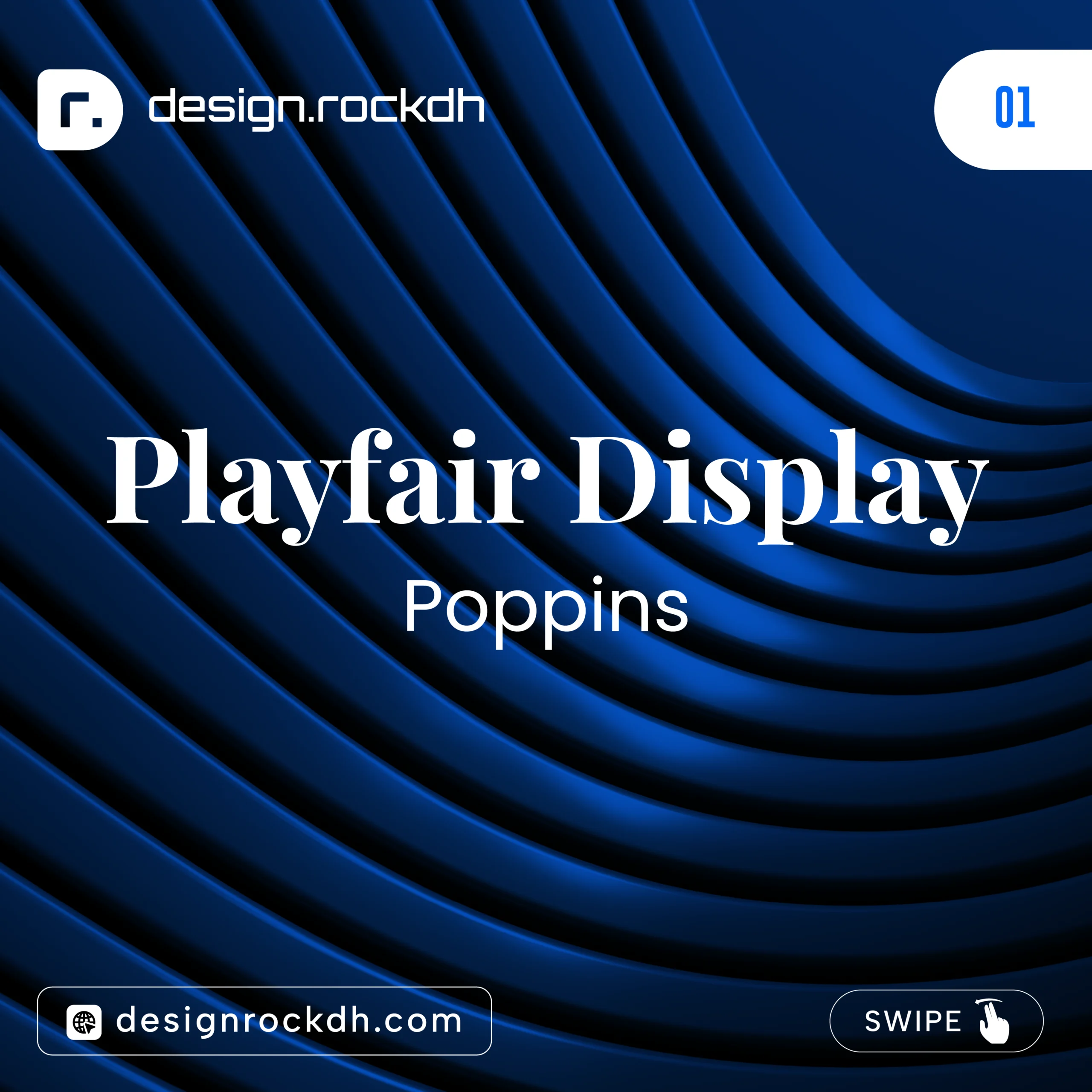
Playfair Display adds elegance with its classic serif style, while Poppins brings a modern and clean appearance.
Best For
- Fashion websites
- Luxury brands
- Beauty products
- Portfolio websites
- Wedding invitations
Download:
Playfair Display:
https://fonts.google.com/specimen/Playfair+Display
Poppins:
https://fonts.google.com/specimen/Poppins
2. Montserrat + Lora
Montserrat offers bold geometric shapes, while Lora provides excellent readability for longer paragraphs.
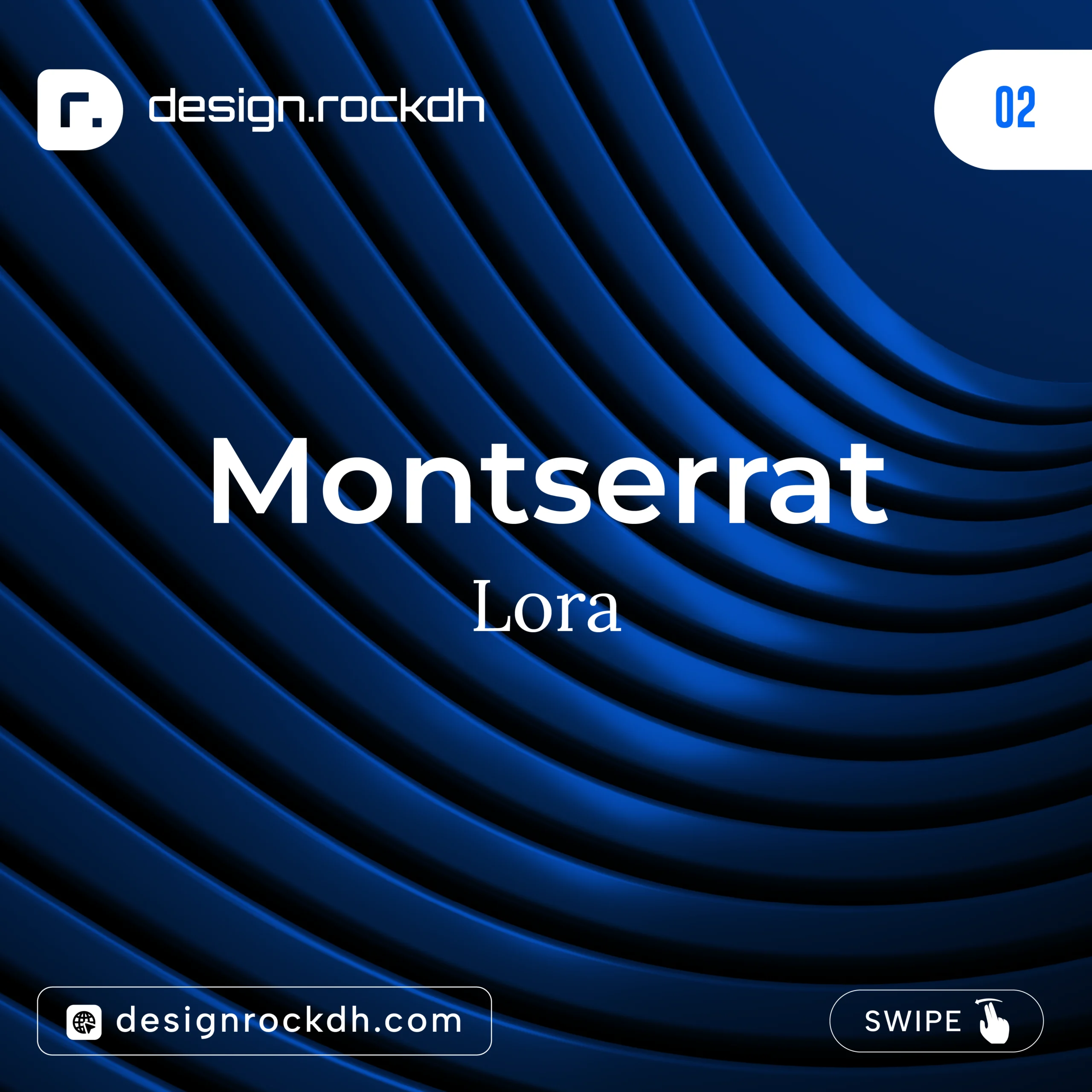
This pairing creates a professional yet approachable look.
Best For
- Blogs
- Company websites
- News portals
- Educational websites
Download:
Montserrat:
https://fonts.google.com/specimen/Montserrat
Lora:
https://fonts.google.com/specimen/Lora
3. Bebas Neue + Open Sans
Bebas Neue is a powerful display font that grabs attention.
Open Sans keeps paragraphs easy to read.
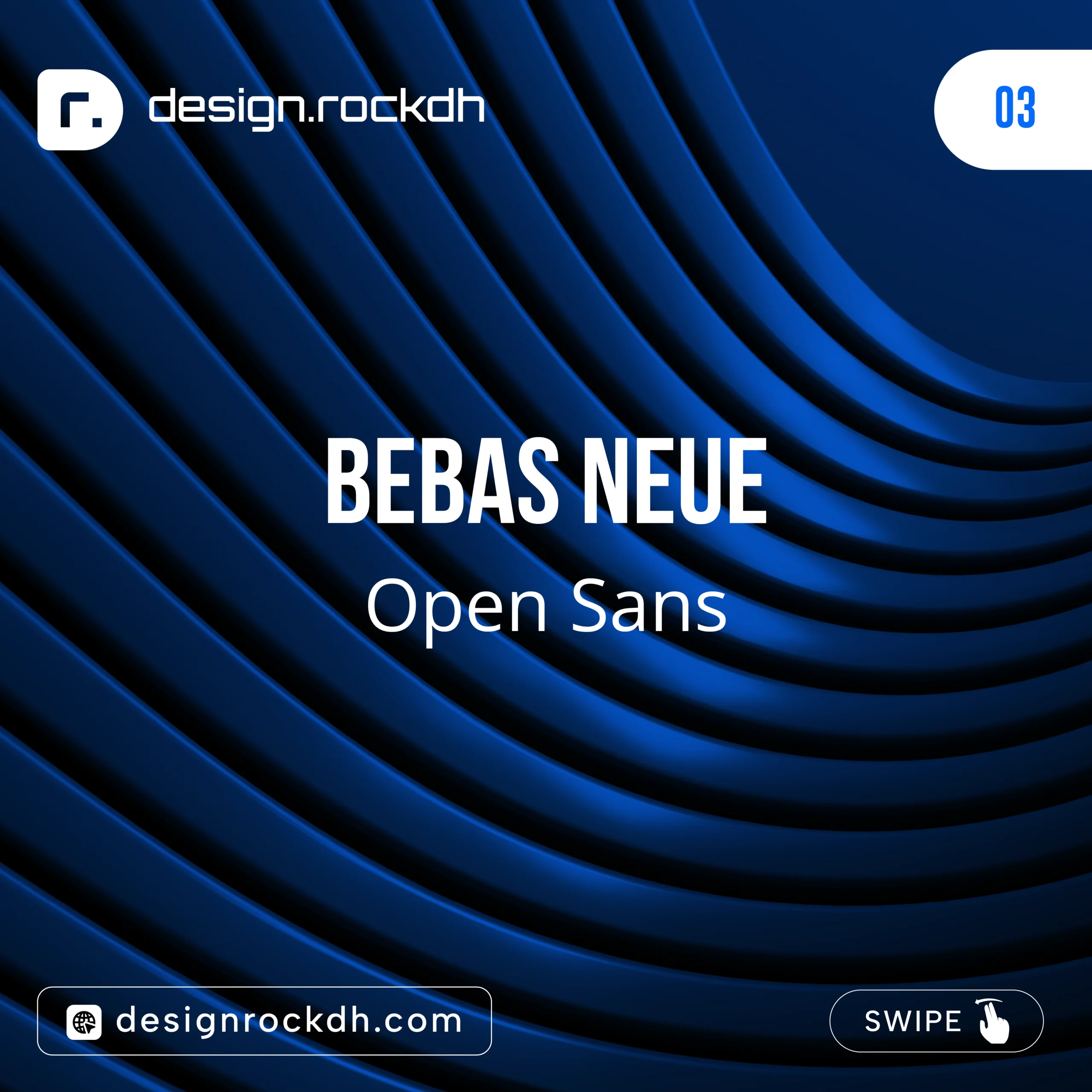
Best For
- Posters
- Event banners
- Gym advertisements
- Sports graphics
Download:
Bebas Neue:
https://fonts.google.com/specimen/Bebas+Neue
Open Sans:
https://fonts.google.com/specimen/Open+Sans
4. Merriweather + Inter
A fantastic combination for websites and blogs.
Merriweather creates attractive headlines while Inter offers exceptional readability on both desktop and mobile devices.
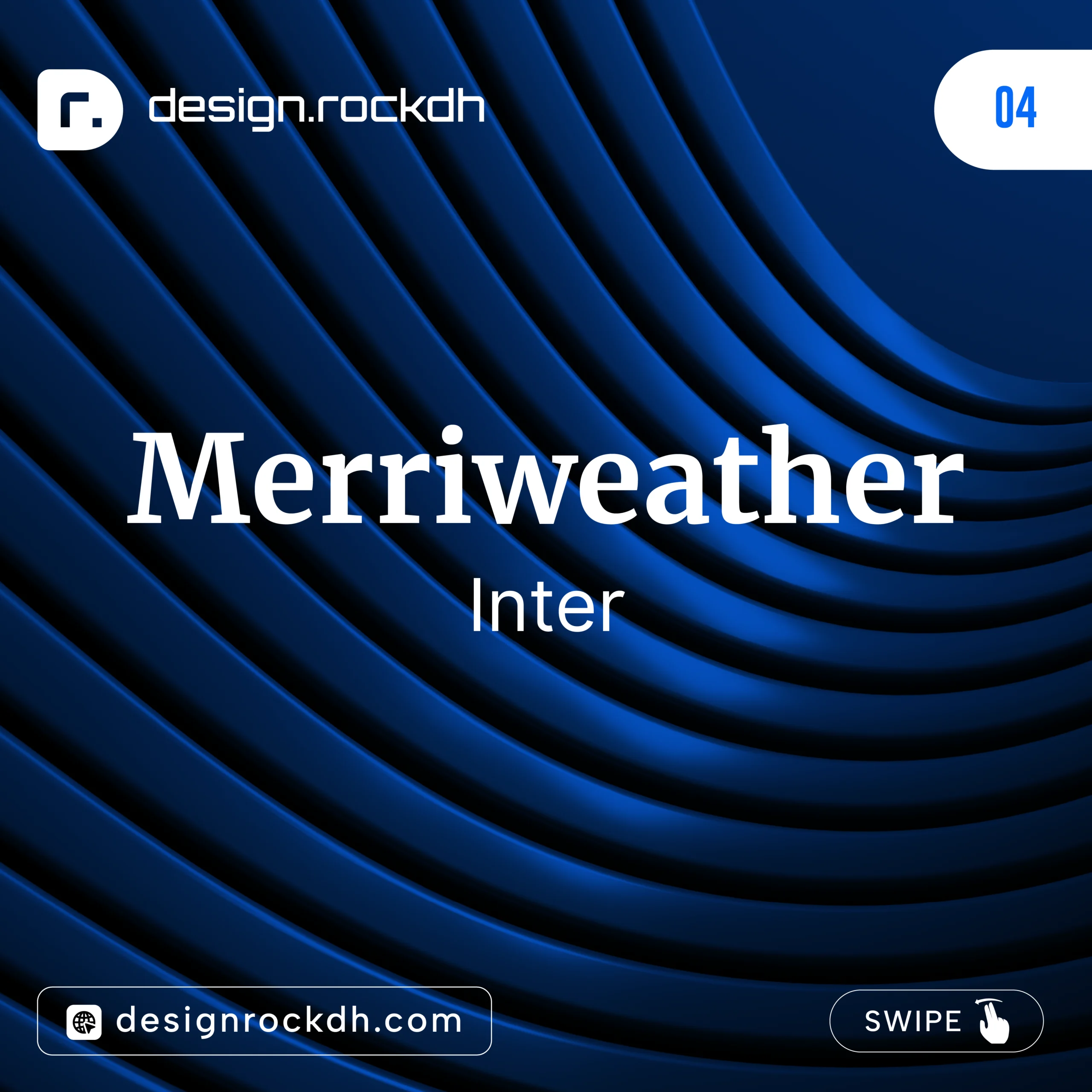
Best For
- Long-form articles
- News websites
- Online magazines
- Documentation
Download:
Merriweather:
https://fonts.google.com/specimen/Merriweather
Inter:
https://fonts.google.com/specimen/Inter
5. Oswald + Nunito
Oswald provides a bold, condensed style that immediately attracts attention.
Nunito adds warmth with its rounded characters.
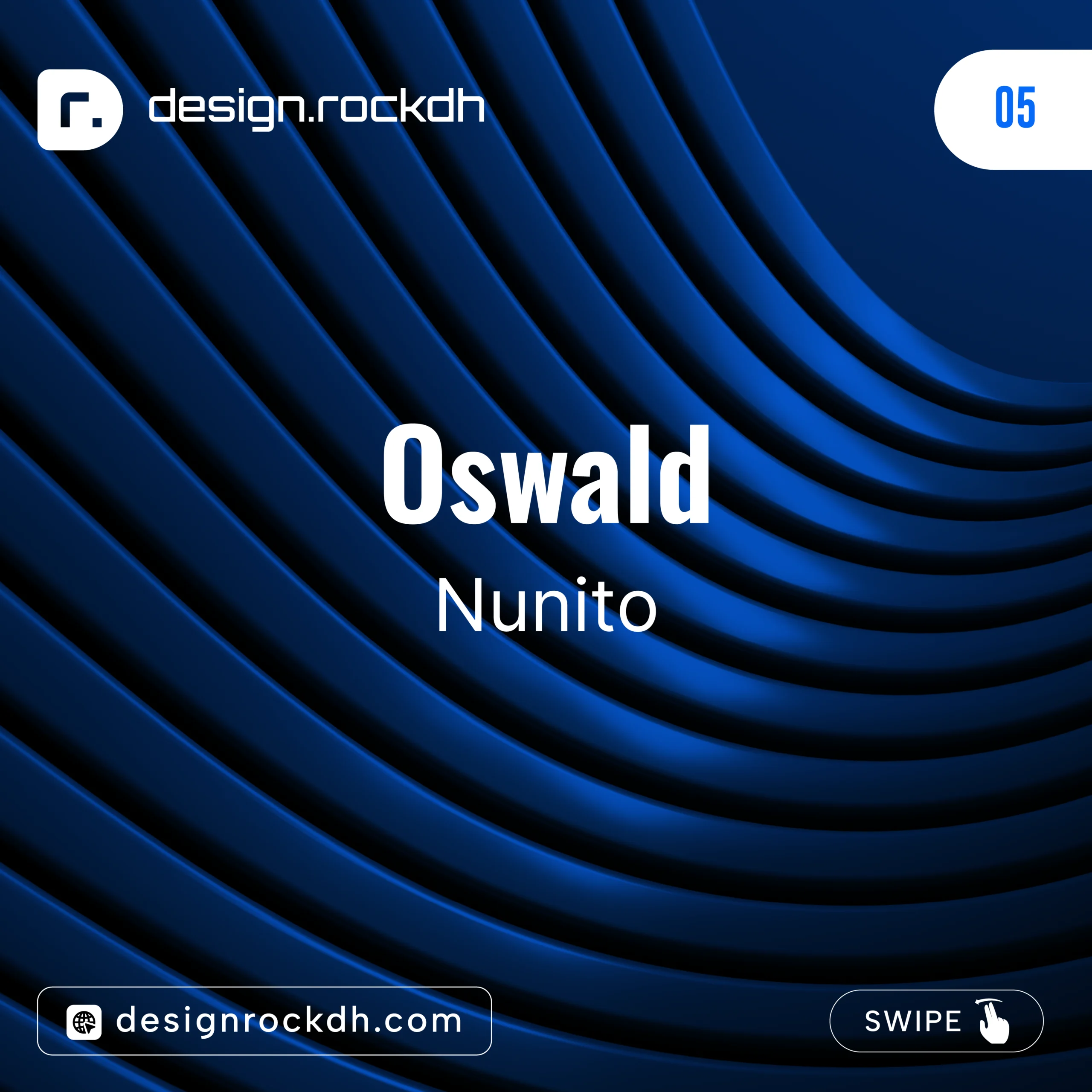
Best For
- Restaurant menus
- Social media graphics
- Business promotions
- Product advertisements
Download:
Oswald:
https://fonts.google.com/specimen/Oswald
Nunito:
https://fonts.google.com/specimen/Nunito
6. Abril Fatface + Source Sans Pro
This combination mixes dramatic headlines with a clean body font.
It creates a premium editorial appearance.
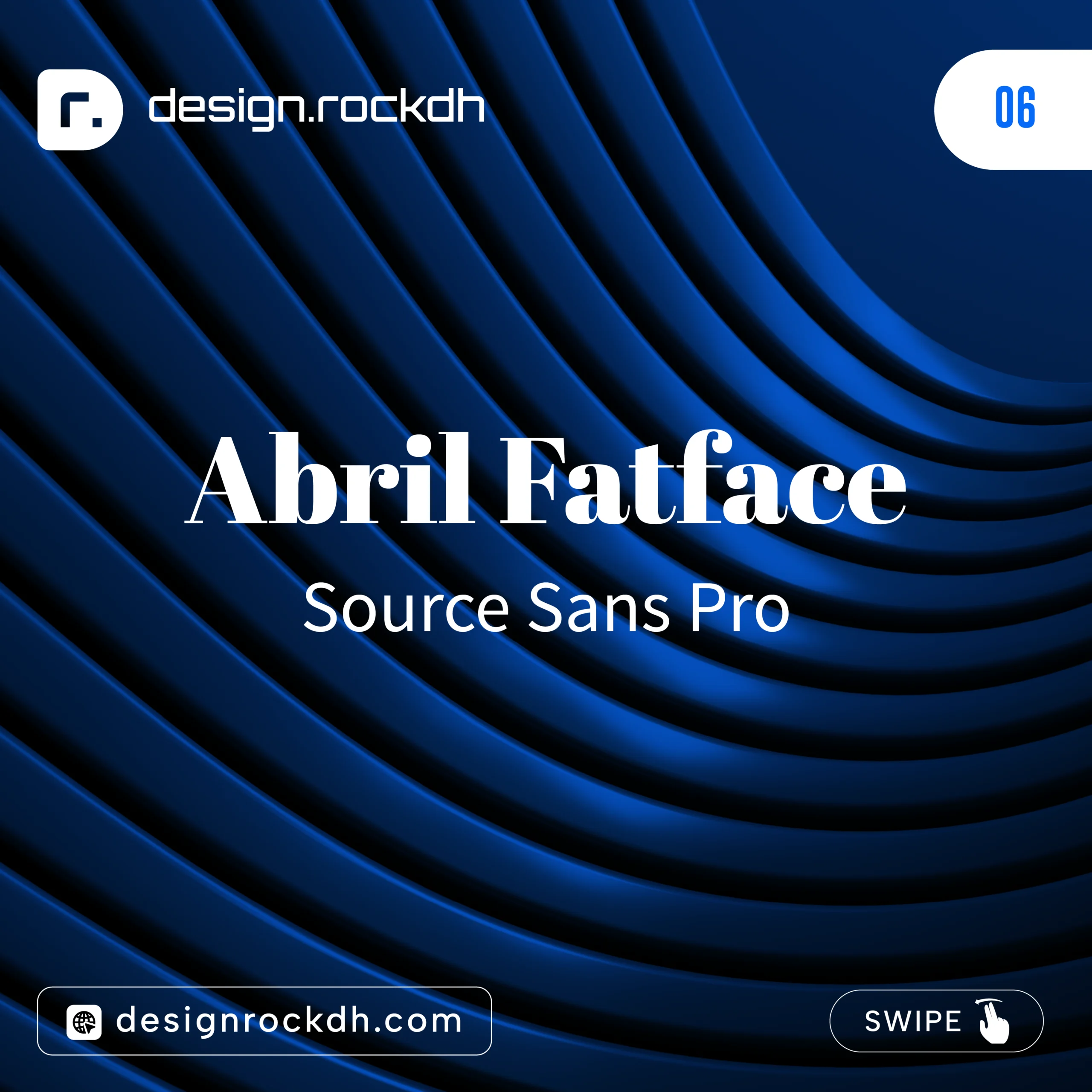
Best For
- Magazines
- Book covers
- Editorial layouts
- Landing pages
Download:
Abril Fatface:
https://fonts.google.com/specimen/Abril+Fatface
Source Sans Pro:
https://fonts.google.com/specimen/Source+Sans+3
7. Anton + Roboto
Anton is bold and impossible to ignore.
Roboto balances the design with comfortable readability.
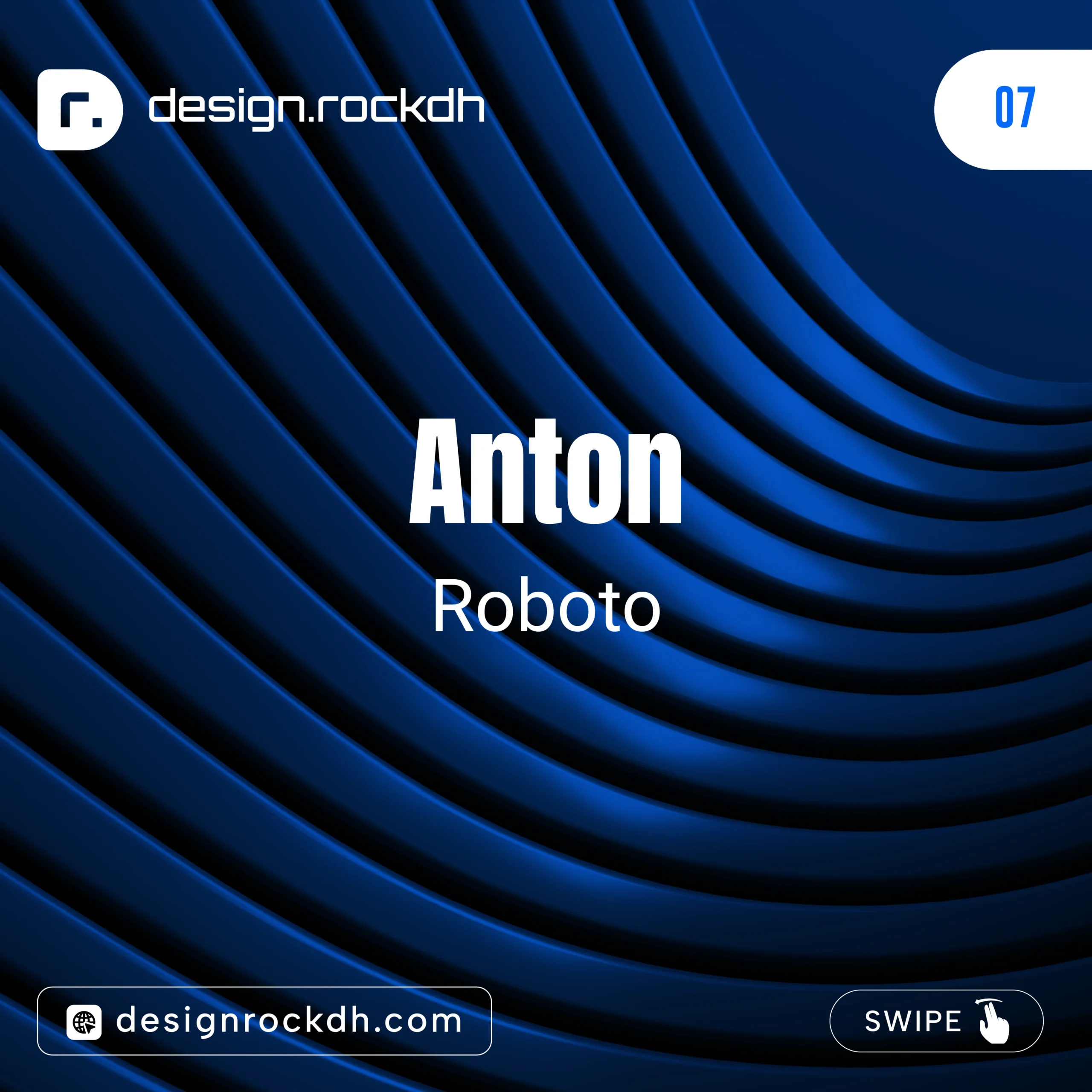
Best For
- YouTube thumbnails
- Advertising banners
- Product promotions
- Hero sections
Download:
Anton:
https://fonts.google.com/specimen/Anton
Roboto:
https://fonts.google.com/specimen/Roboto
8. Raleway + Merriweather
Raleway has a sleek modern appearance.
Merriweather gives longer content a polished reading experience.
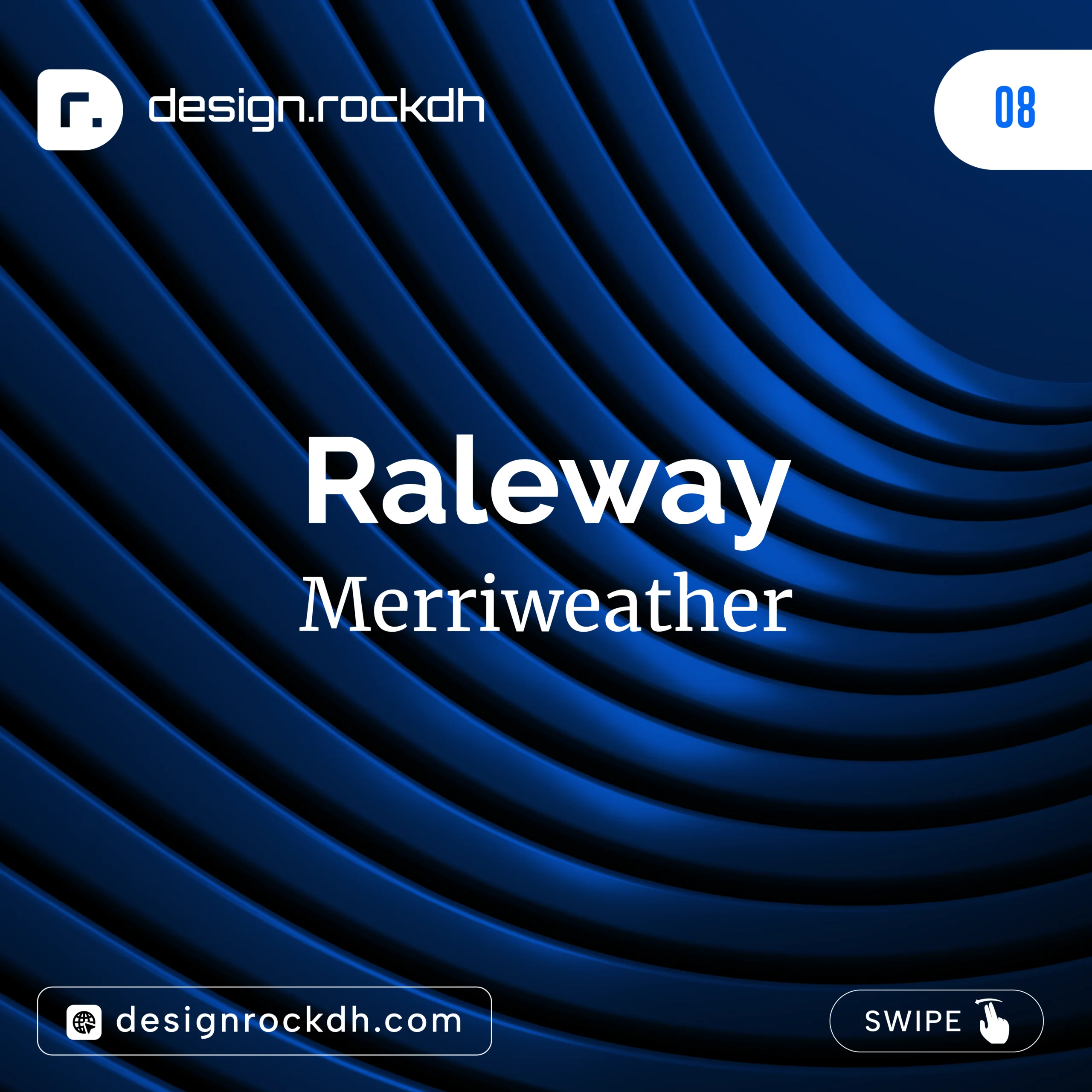
Best For
- Corporate websites
- Business reports
- Professional blogs
- Consulting firms
Download:
Raleway:
https://fonts.google.com/specimen/Raleway
Merriweather:
https://fonts.google.com/specimen/Merriweather
9. Libre Baskerville + Montserrat
Classic meets contemporary.
Libre Baskerville provides timeless elegance, while Montserrat keeps everything modern.
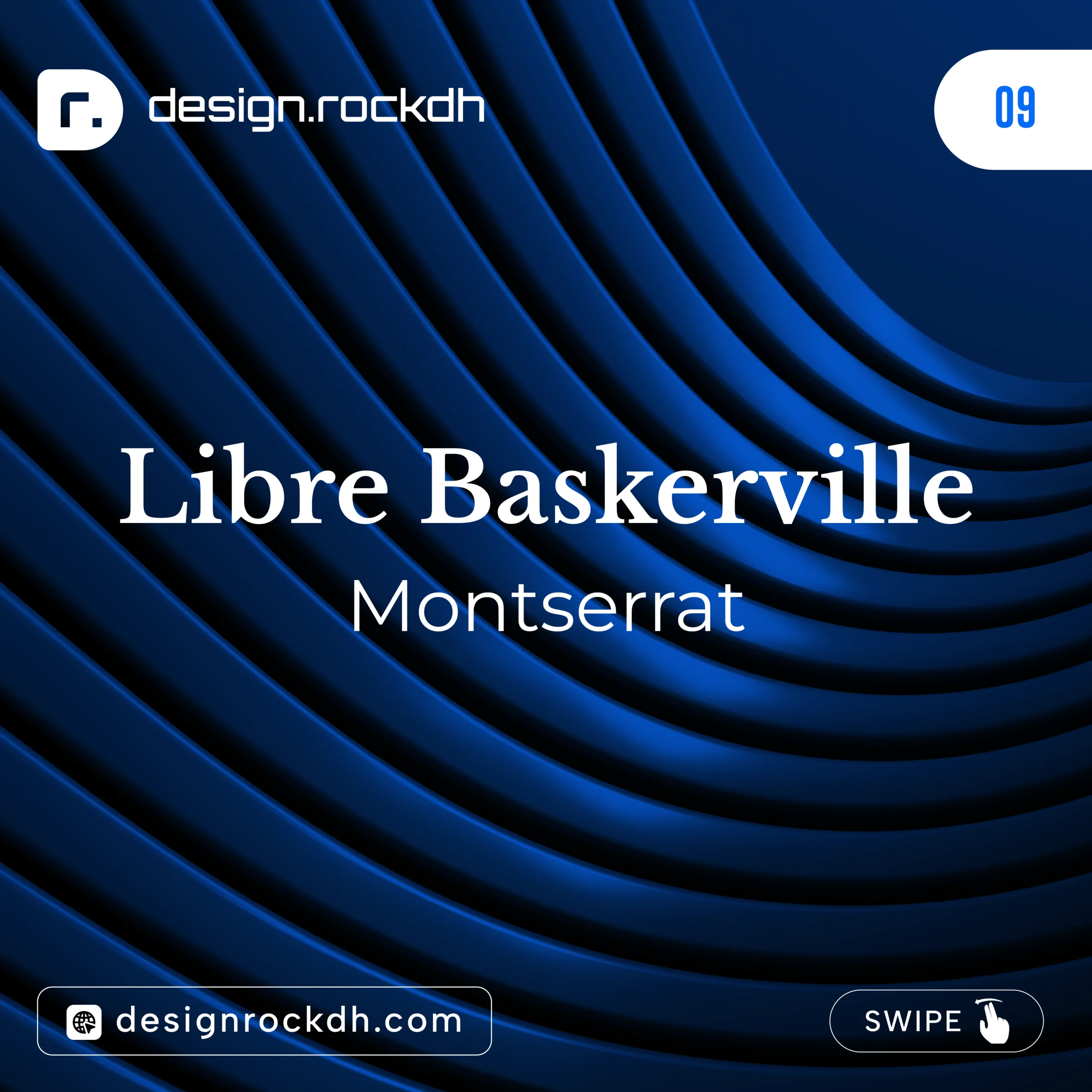
Best For
- Publishing
- Luxury branding
- Agency websites
- Editorial design
Download:
Libre Baskerville:
https://fonts.google.com/specimen/Libre+Baskerville
Montserrat:
https://fonts.google.com/specimen/Montserrat
10. Dancing Script + Poppins
This pairing adds personality without sacrificing readability.
Use Dancing Script only for short headings.
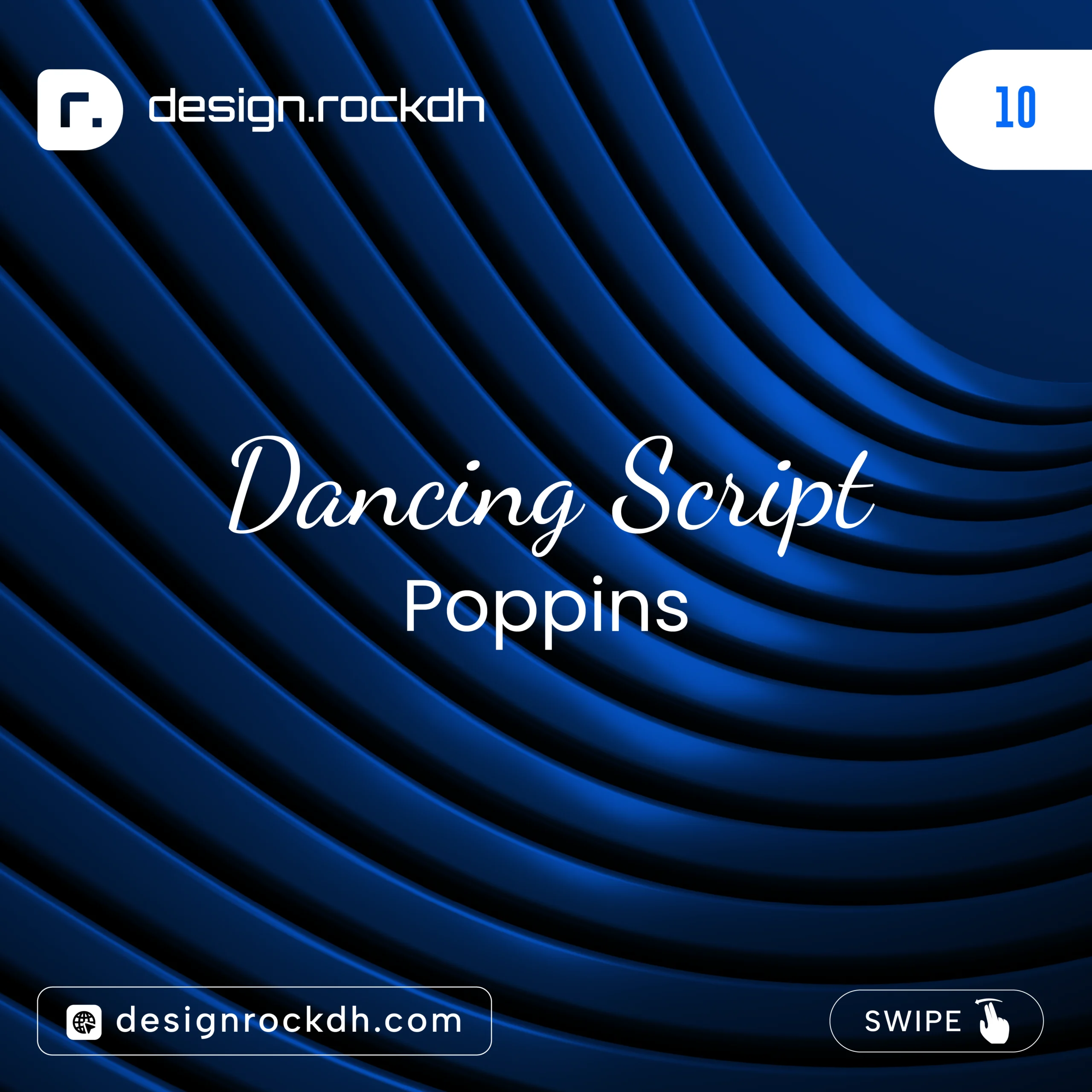
Best For
- Greeting cards
- Wedding invitations
- Instagram posts
- Handmade product branding
Download:
Dancing Script:
https://fonts.google.com/specimen/Dancing+Script
Poppins:
https://fonts.google.com/specimen/Poppins
How to Choose the Right Font Pair
Before selecting fonts, ask yourself these simple questions.
Who is your audience?
Designs for children should feel playful.
Business websites should feel trustworthy.
Luxury brands should feel elegant.
Technology companies usually prefer modern sans serif fonts.
Understanding your audience helps narrow your font choices.
What is the purpose?
Different projects require different typography.
Examples include:
- Blog article
- Mobile app
- Company website
- Logo
- Business card
- Presentation
- Restaurant menu
- Event poster
Each project has unique typography needs.
Is the font readable?
Even the most beautiful font is useless if readers struggle to understand the text.
Always preview your design on different screen sizes before publishing.
Does the font support multiple languages?
If your audience is international, choose fonts that support extended character sets.
Google Fonts provides language support information for each font family.
Font Pairing Tips for Different Design Projects
Website Design
Keep headings bold.
Use a highly readable body font.
Avoid decorative fonts in paragraphs.
Maintain consistent spacing.
Logo Design
Use one memorable font.
Avoid combining several decorative fonts.
Simple logos remain recognizable across all sizes.
Social Media Graphics
Large bold headlines work best.
Pair them with simple supporting text.
Remember that users often scroll quickly, so readability is critical.
Business Presentations
Professional presentations should use clean typography.
Recommended combinations include:
- Montserrat + Lora
- Poppins + Inter
- Merriweather + Open Sans
These combinations look modern while remaining easy to read on large screens.
Branding Projects
Choose fonts that match the company’s personality.
Luxury brands often prefer serif fonts.
Technology startups usually prefer geometric sans serif fonts.
Creative agencies often mix bold display fonts with minimal body text.
Common Font Pairing Mistakes to Avoid
Even experienced designers occasionally make typography mistakes. Fortunately, most of these issues are easy to avoid once you understand the fundamentals.
1. Using Too Many Fonts
One of the biggest mistakes is using four or five different fonts in a single design.
Instead, limit yourself to:
- One heading font
- One body font
- One optional accent font
Too many fonts make a design look cluttered and unprofessional.
2. Choosing Fonts That Look Too Similar
Fonts should complement each other, not compete.
For example:
Roboto + Open Sans
Arial + Helvetica
Lato + Open Sans
These combinations are so similar that they don’t create enough visual hierarchy.
Instead, combine different styles.
Examples:
Playfair Display + Poppins
Oswald + Inter
Merriweather + Montserrat
3. Ignoring Font Hierarchy
Every design needs clear structure.
Readers should instantly recognize:
- Main heading
- Subheading
- Body text
- Captions
- Buttons
If everything looks the same size and weight, readers won’t know where to focus.
4. Using Decorative Fonts Everywhere
Display and script fonts are designed to attract attention—not to be read in long paragraphs.
Good practice:
- Decorative font for titles
- Clean sans serif font for paragraphs
This creates a balanced design that’s both attractive and readable.
5. Forgetting Line Spacing
Even perfect font pairing can fail if the spacing is poor.
Recommended line height:
- Body text: 1.5–1.8
- Headings: 1.2–1.3
Proper spacing improves readability and gives your content room to breathe.
6. Ignoring Mobile Users
More than half of web traffic now comes from smartphones.
Always test your typography on:
- Desktop
- Tablet
- Mobile
A font that looks great on a large monitor may appear too small or cramped on a phone.
Best Websites to Download Free Fonts
Here are some trusted sources for high-quality fonts.
Google Fonts
The most popular free font library, offering hundreds of open-source fonts optimized for both web and print.
Fontshare
A growing collection of professionally designed fonts that are free for personal and commercial use.
Adobe Fonts
Available with Adobe Creative Cloud, offering thousands of premium fonts for designers.
DaFont
A huge collection of decorative and creative fonts. Always check the license before using a font commercially.
Font Squirrel
Curates fonts that are free for commercial use, making it a reliable source for business projects.
Professional Typography Tips
Great typography is about more than choosing attractive fonts. Keep these practical tips in mind:
- Maintain consistent font sizes throughout your project.
- Use bold weights to emphasize headings instead of adding extra fonts.
- Leave enough white space around text to improve readability.
- Limit line length to about 50–75 characters for comfortable reading.
- Ensure strong contrast between text and background.
- Avoid using all capital letters for long paragraphs.
- Keep font styles consistent across every page of your website or brand materials.
These small adjustments can dramatically improve the overall look and usability of your designs.
Summary
Font pairing is both an art and a practical design skill. While there are no absolute rules, understanding typography principles allows you to make informed choices that enhance both aesthetics and readability.
The most effective font combinations create contrast without conflict, establish a clear visual hierarchy, and match the tone of your project. Whether you’re designing a website, logo, presentation, or social media graphic, thoughtful font pairing helps communicate your message more clearly and leaves a lasting impression on your audience.
Remember that simplicity often leads to the best results. Start with two complementary fonts, focus on readability, and maintain consistency throughout your design. As you gain experience, you’ll develop an eye for combinations that feel balanced, professional, and visually engaging.
Typography is more than just selecting attractive fonts—it’s about creating an enjoyable reading experience. Master the basics of font pairing, and every design you create will become more polished, effective, and memorable.